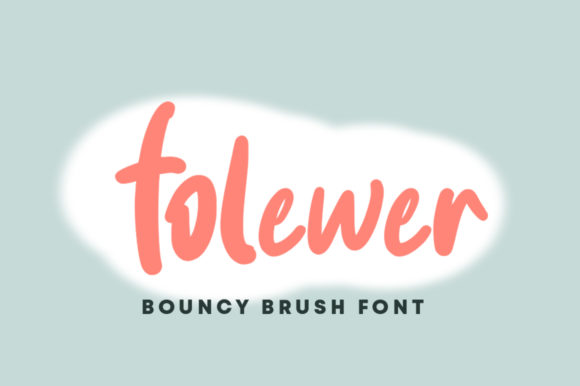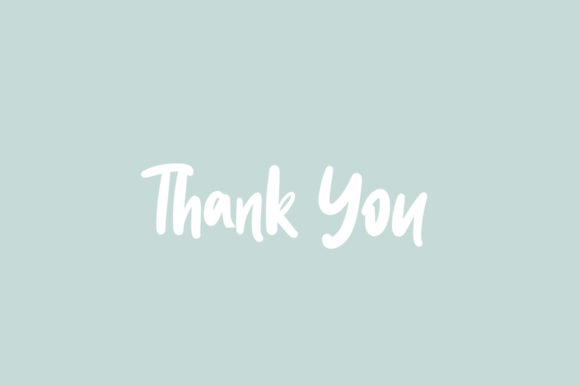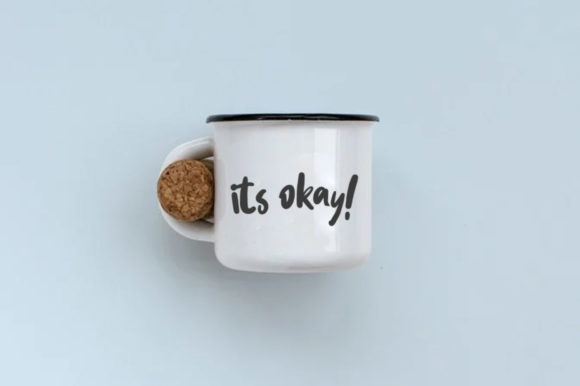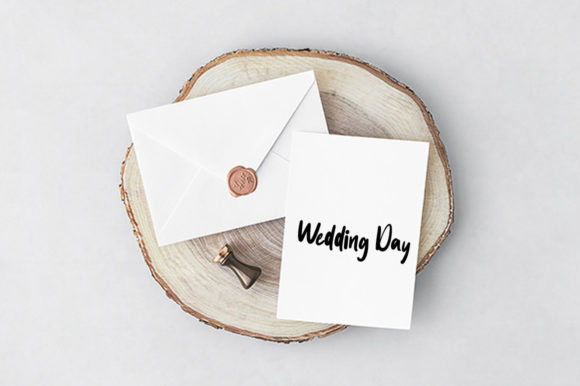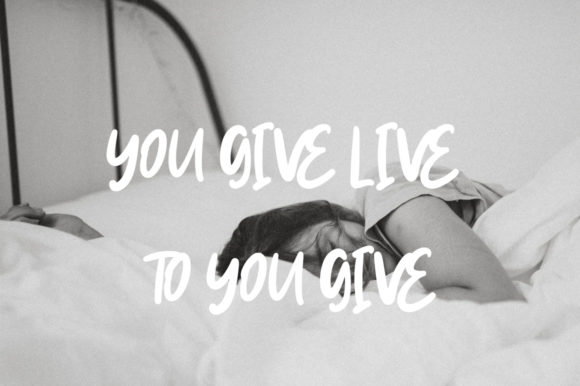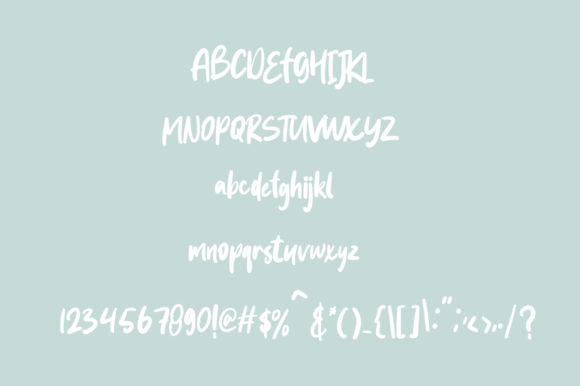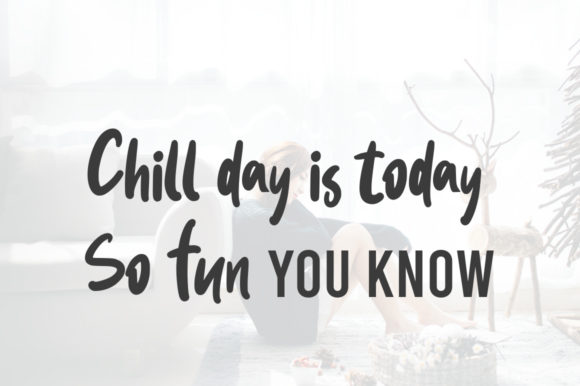
Folewer Font
About Folewer Font
Folewer is a sweet and cute script font that brings a playful and friendly vibe to your designs. With its charming and whimsical letterforms, this font adds a touch of joy and lightheartedness to any project.
The strong yet friendly shape of Folewer gives it a distinct and eye-catching appeal. Each letter is carefully crafted with attention to detail, creating a balance between boldness and cuteness. Whether you’re designing posters, greeting cards, social media graphics, or any other informal project, Folewer is sure to bring a smile to your audience.
The versatility of Folewer allows it to match a wide range of design styles and themes. Its friendly nature makes it suitable for children’s projects, playful branding, cute illustrations, and more. The font’s whimsical and expressive strokes add personality and character to your designs, making them stand out from the crowd.
With Folewer, you have the freedom to create cute, funny, and stunning designs. The font’s lively and energetic appearance inspires creativity and encourages you to experiment with various layouts, colors, and compositions. Whether you’re designing for personal or commercial use, Folewer offers endless possibilities for adding a touch of cuteness to your creations.
Additionally, Folewer’s legibility ensures that your message is easily readable. While it embraces a playful and whimsical style, the clarity of the letterforms is maintained, allowing your audience to effortlessly engage with the content. This balance between style and readability ensures that your designs are both visually appealing and effective in delivering your message.
In conclusion, Folewer is a sweet and cute script font that brings a delightful and friendly touch to your designs. Its strong yet friendly shape and versatile nature make it a perfect choice for a wide range of informal projects. So, let your creativity blossom and create adorable and stunning designs using the Folewer font!